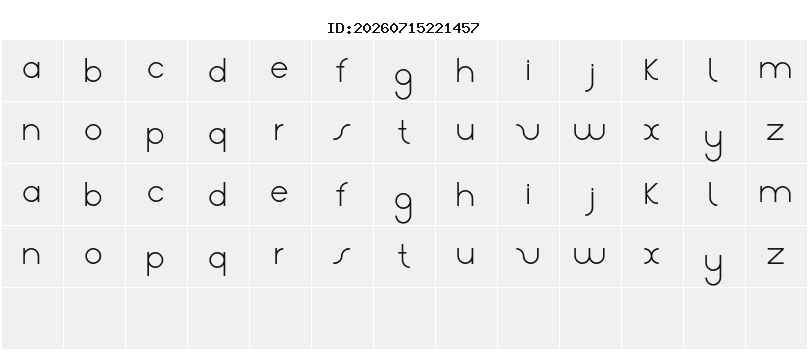
• Font Name: Aster
• Font ID: PauloR: Aster: 2012
• Full Font Name: Aster
• Version: Version 1.001 2012
• PostScript Name: Aster
• Character Count: 53
• Designer: Paulo R
• Manufacturer: Paulo R
About Aster.otf
Aster.otf is a modern, elegant sans-serif font designed for ultimate readability and visual harmony. Perfect for branding, headlines, web design, and print materials.